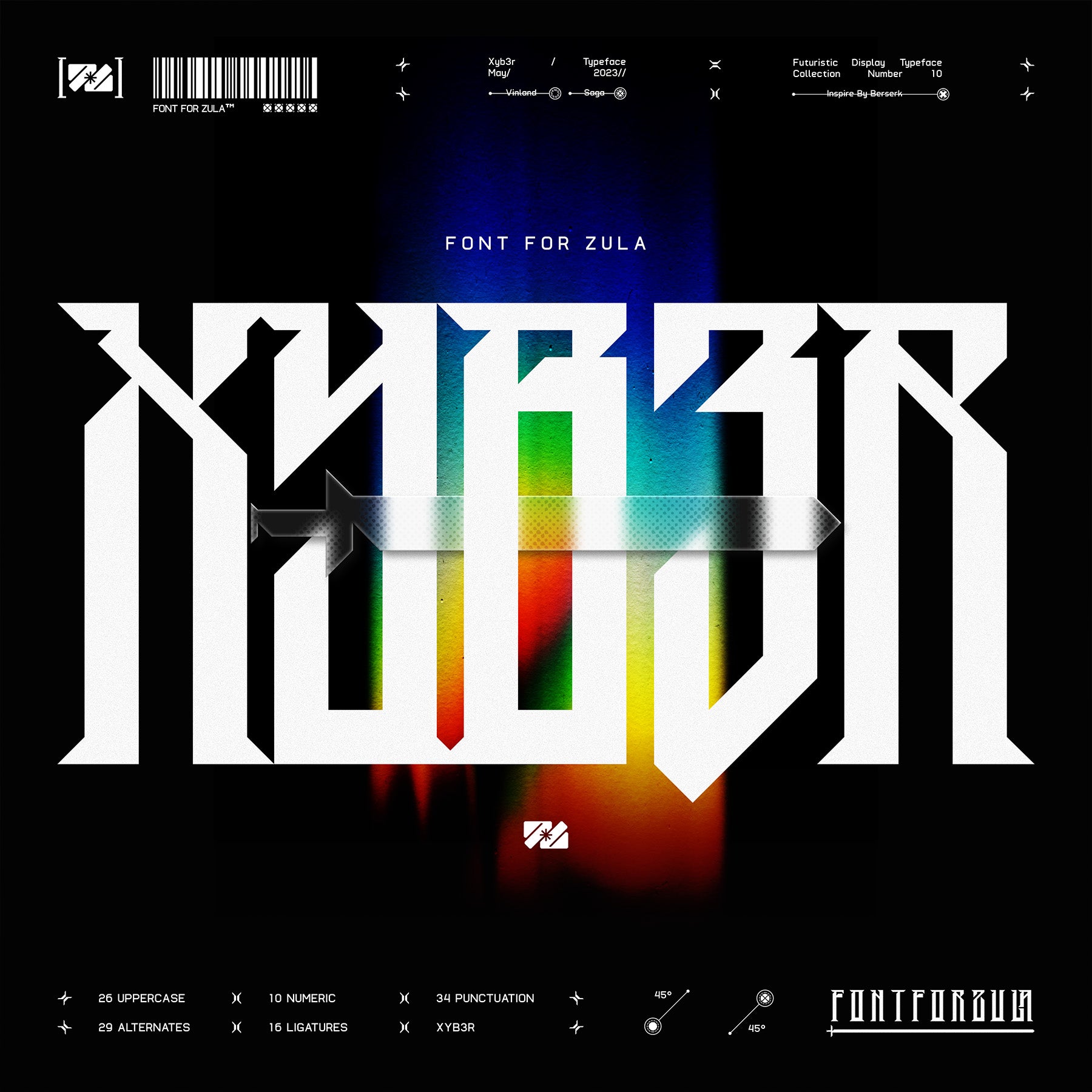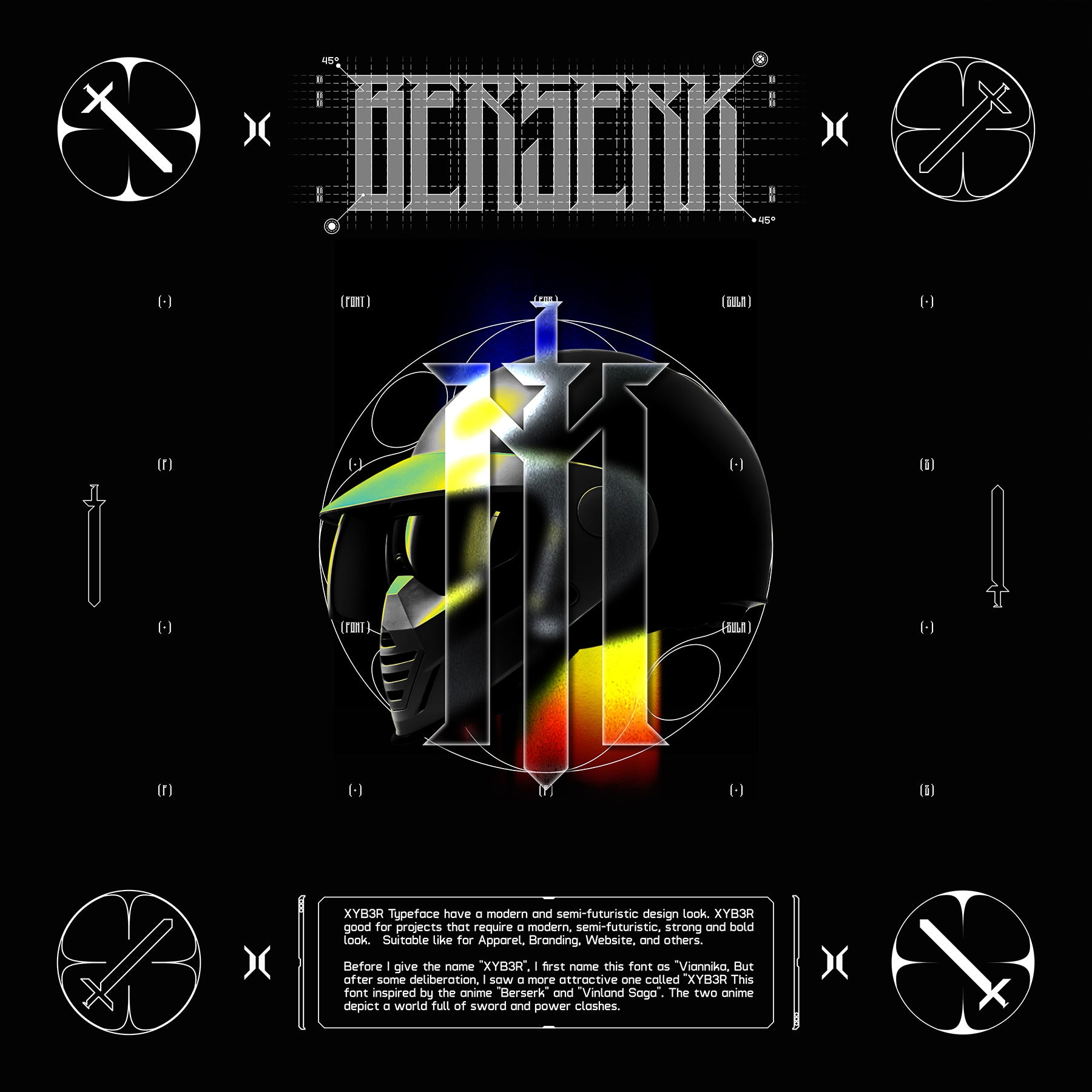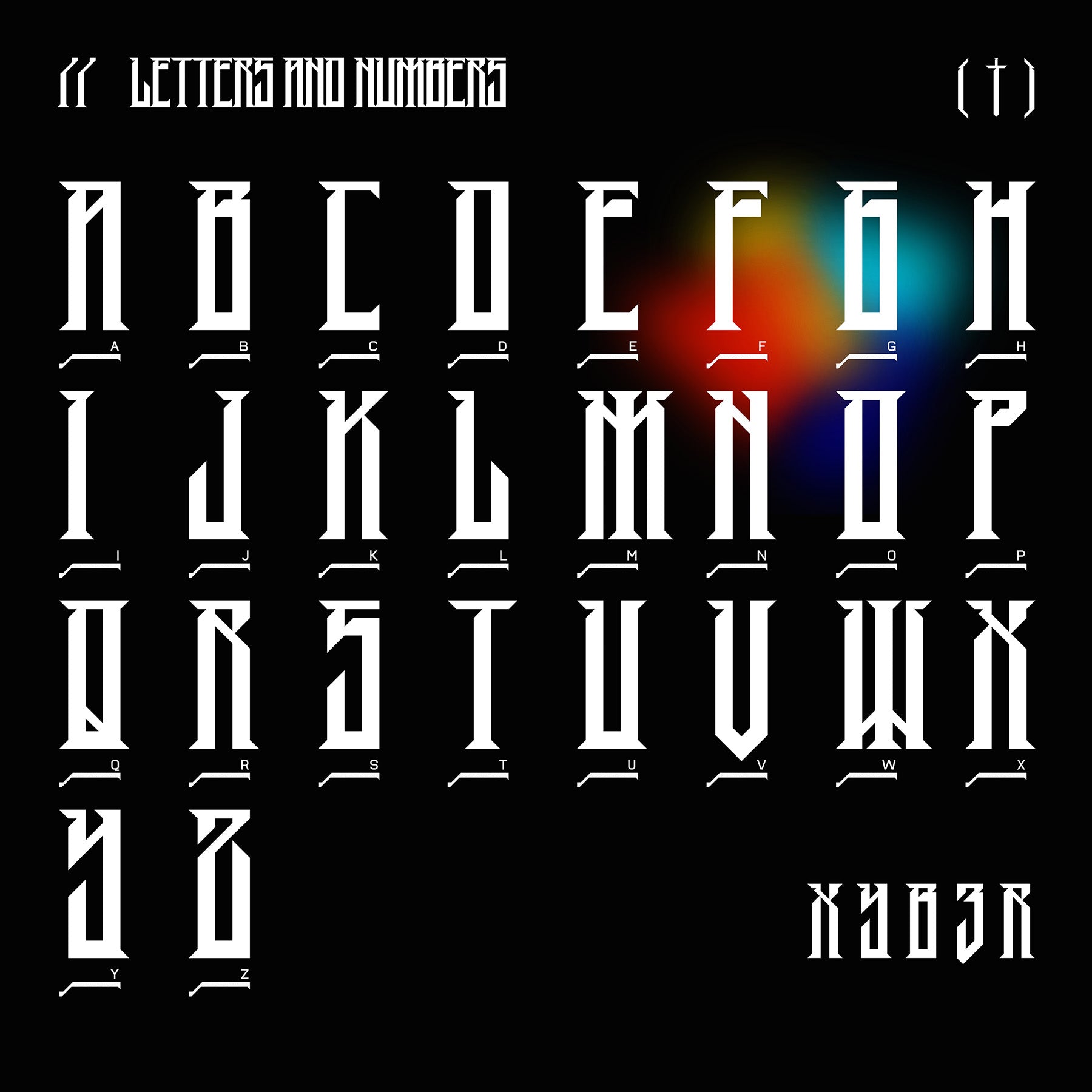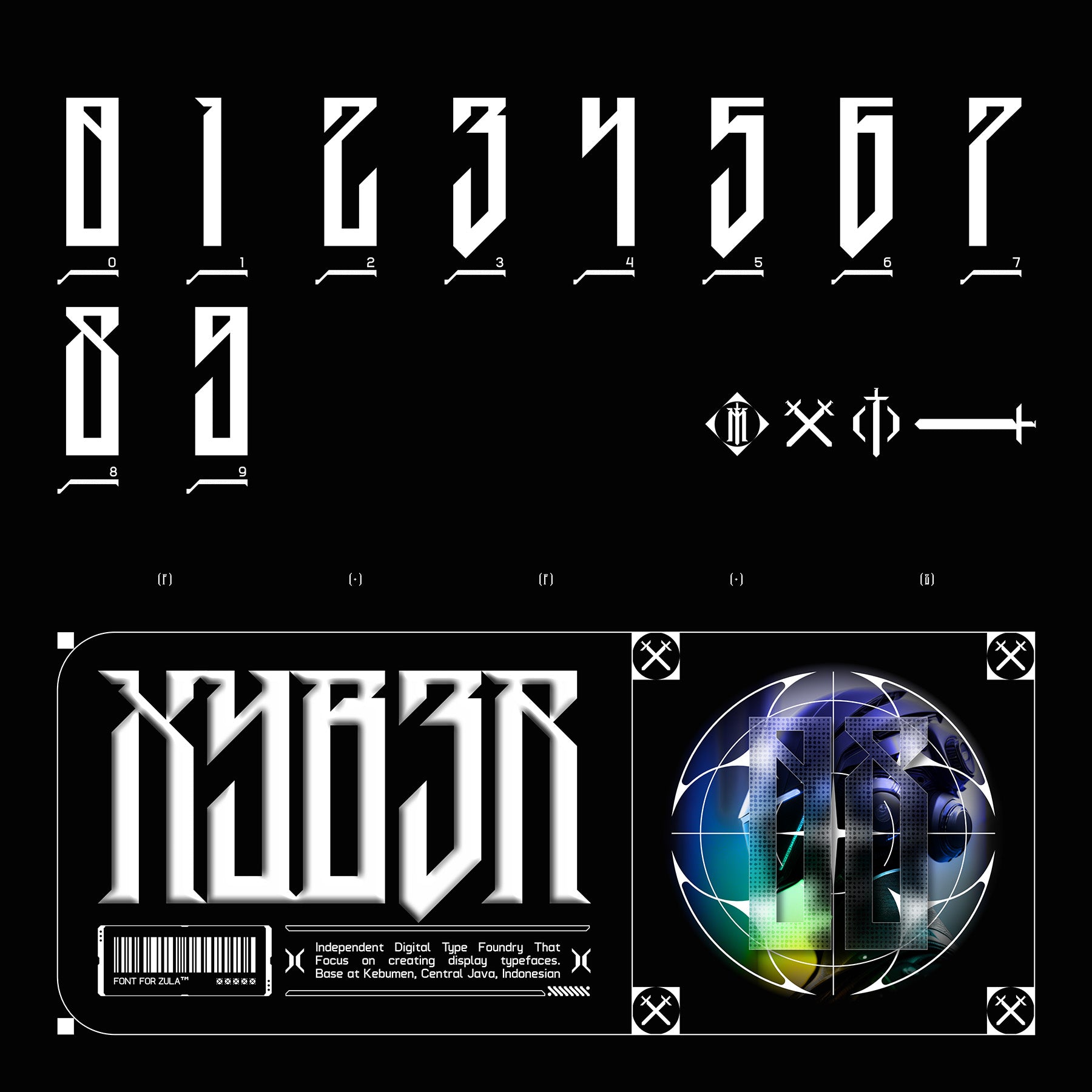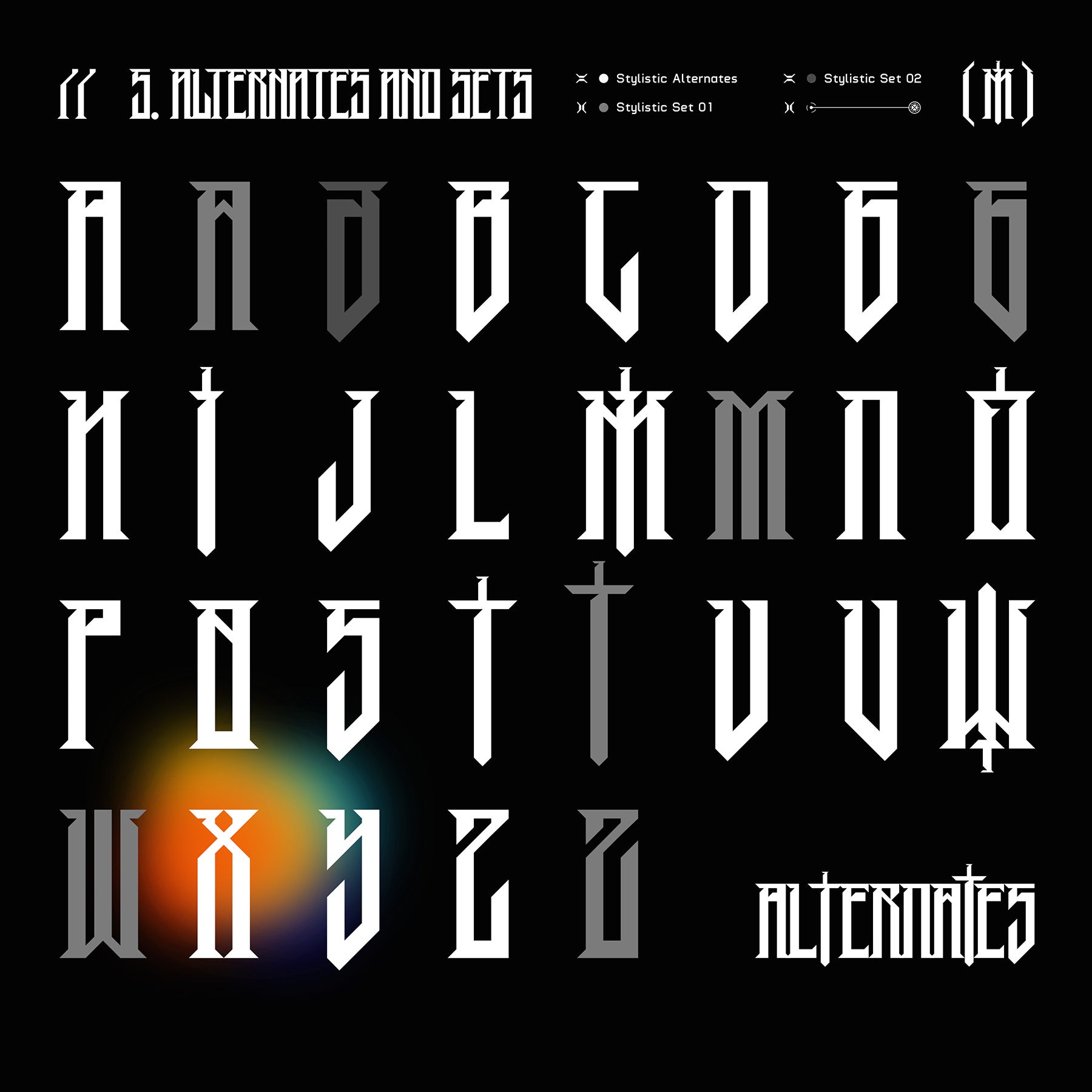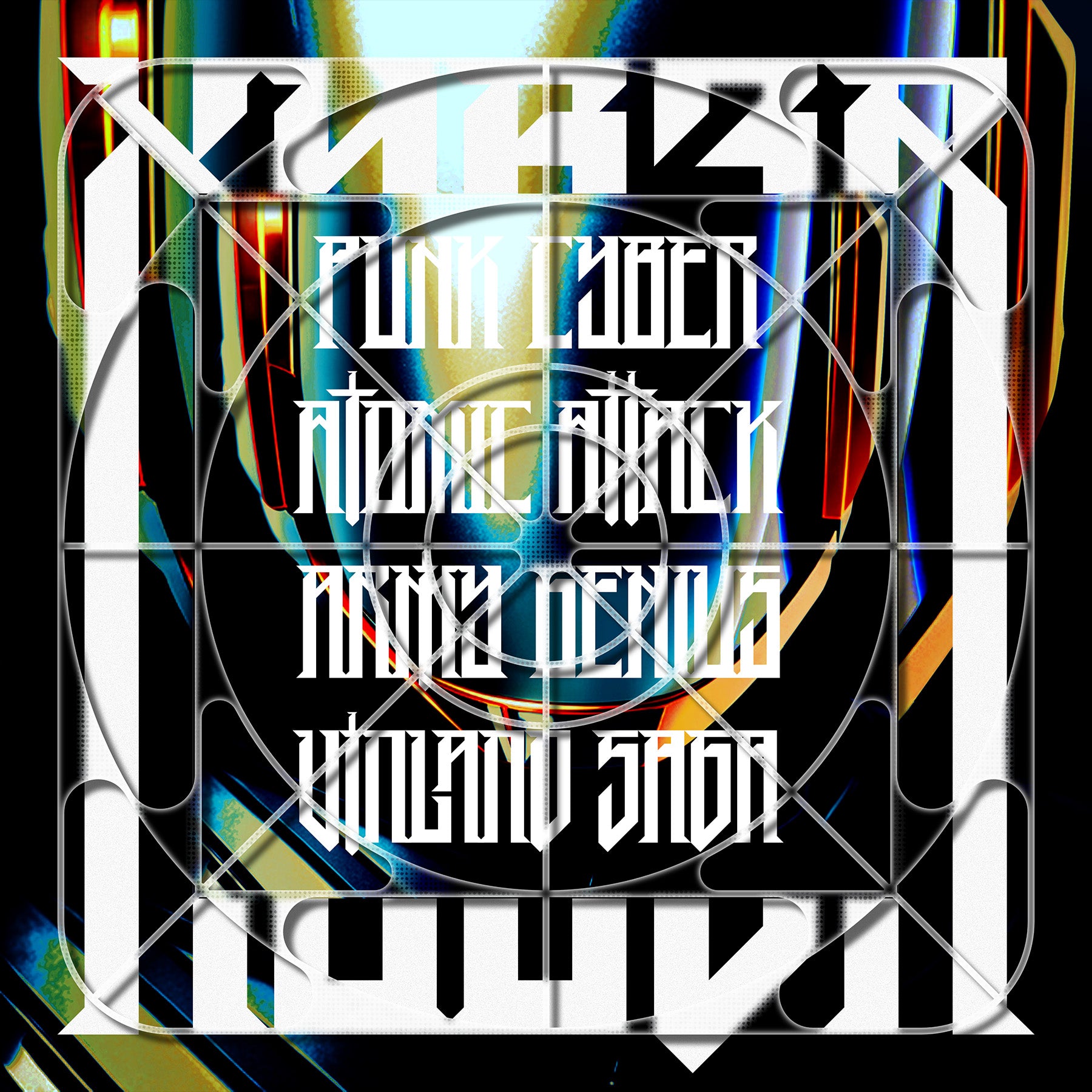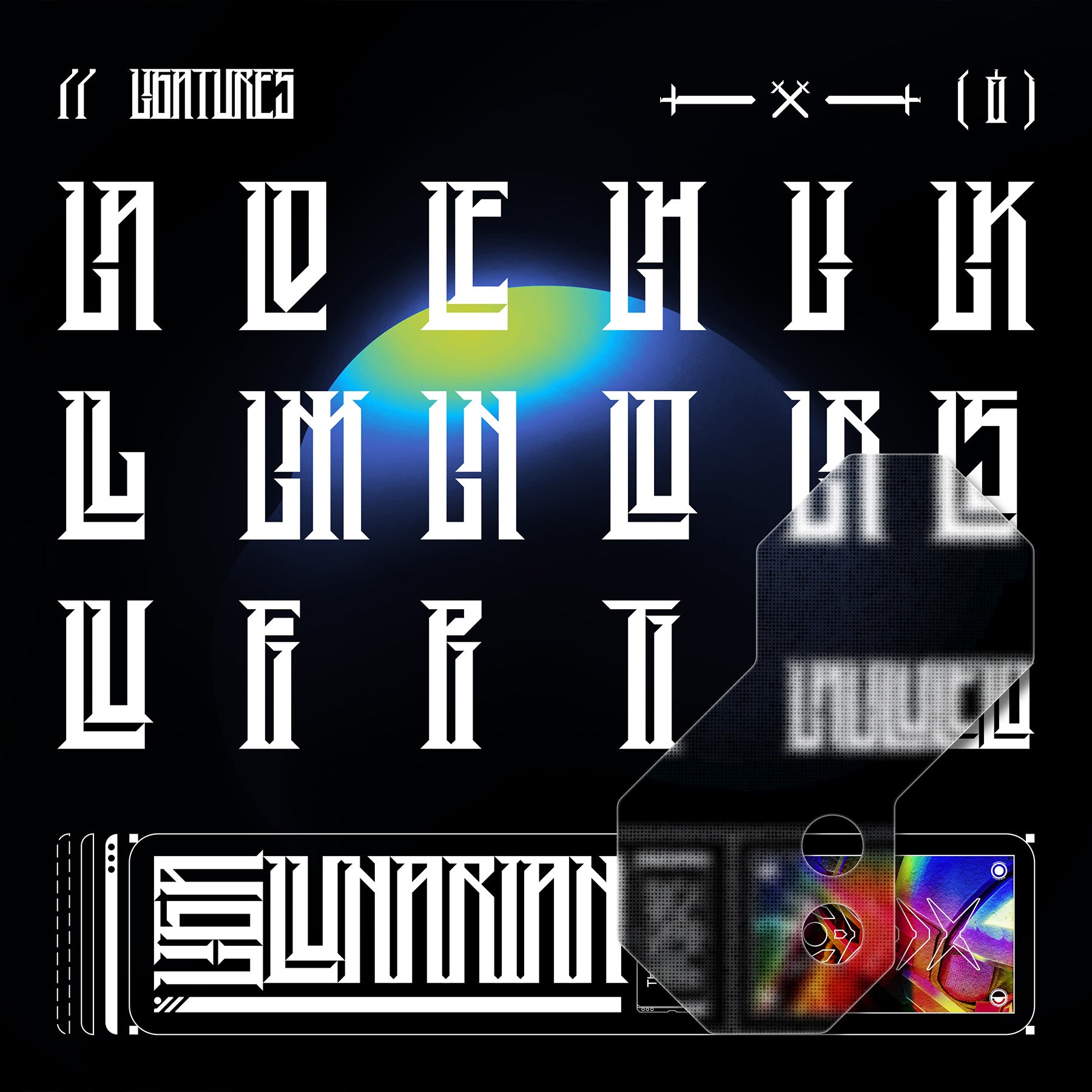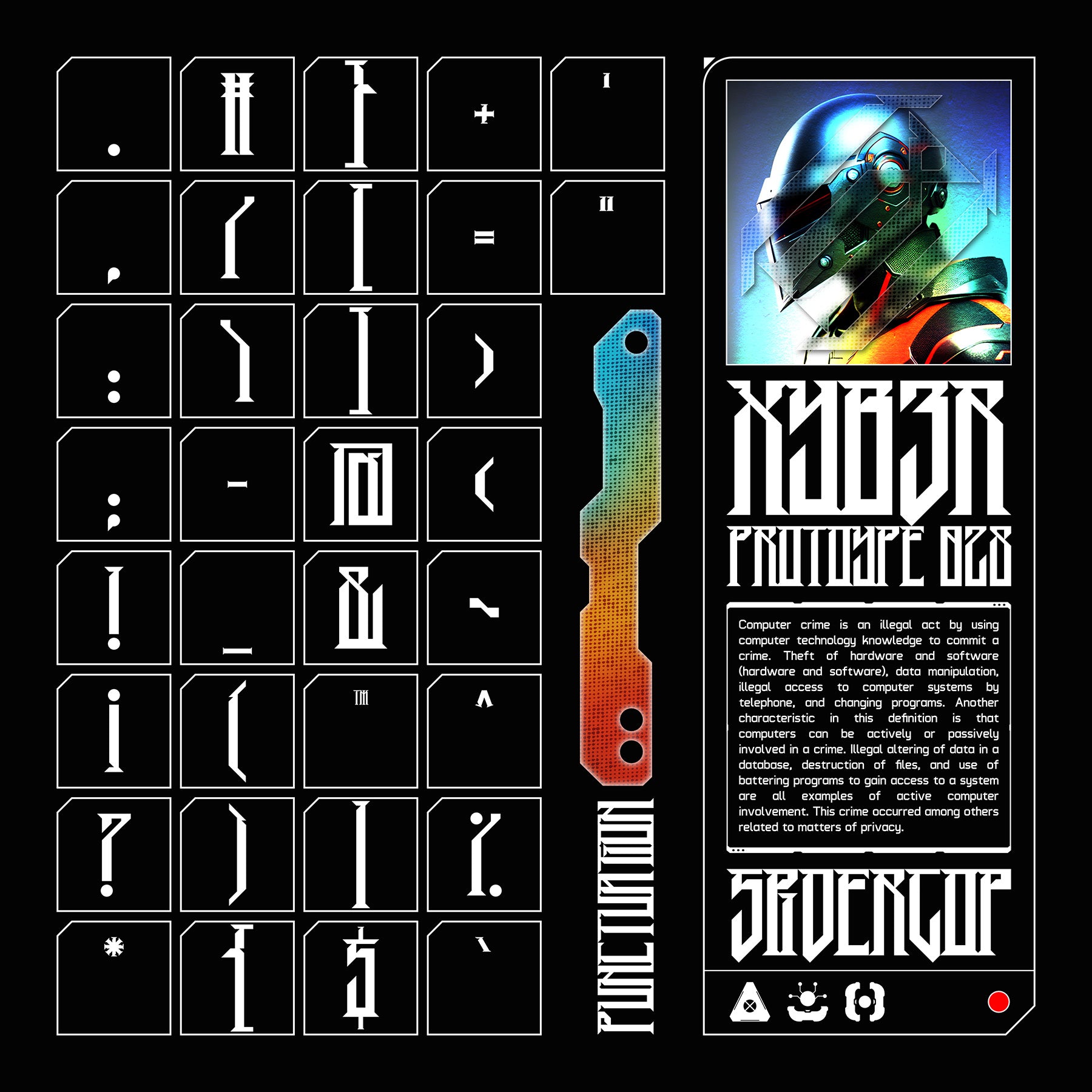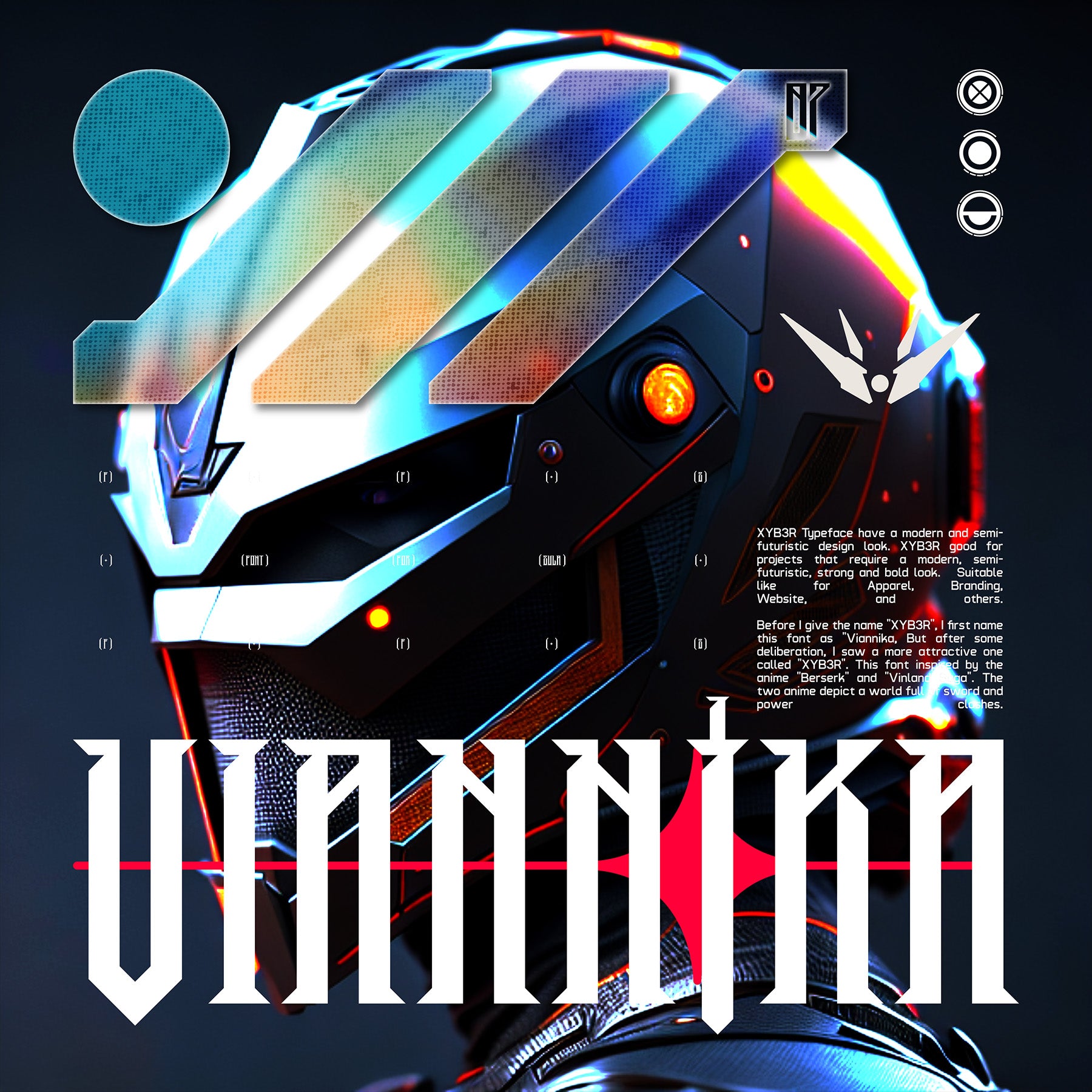
XYB3R Typeface
Introducing the XYB3R Typeface - a cutting-edge font boasting a contemporary and semi-futuristic design. This font is an excellent choice for projects that demand a modern, bold, and strong appearance, ideal for applications in Apparel, Branding, Websites, and more.
Originally named "Viannika," the font underwent a thoughtful evolution before settling on the captivating name "XYB3R." Drawing inspiration from the anime masterpieces "Berserk" and "Vinland Saga," this font captures the essence of worlds brimming with swordplay and power struggles.
Embrace the dynamic spirit of XYB3R Typeface as it brings a touch of modernity and intrigue to your creative endeavors, resonating with the captivating aura of these iconic anime series.